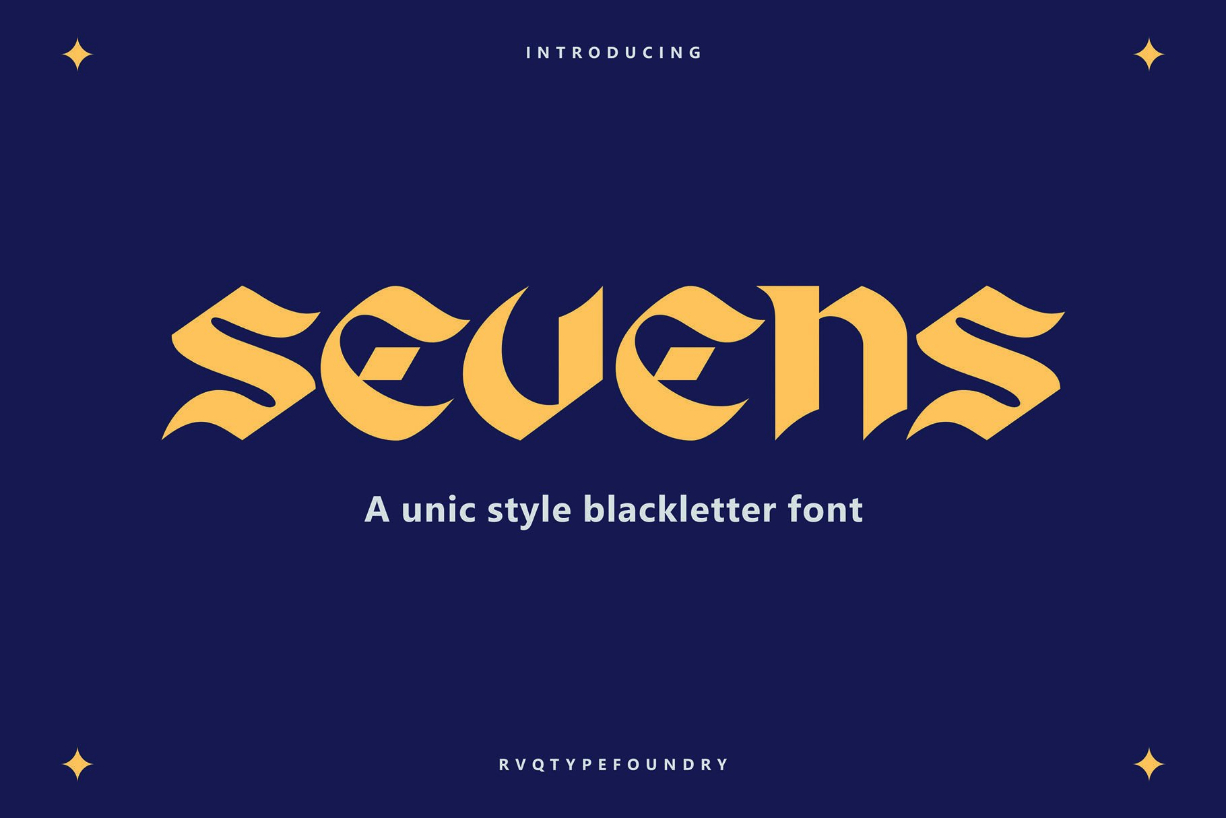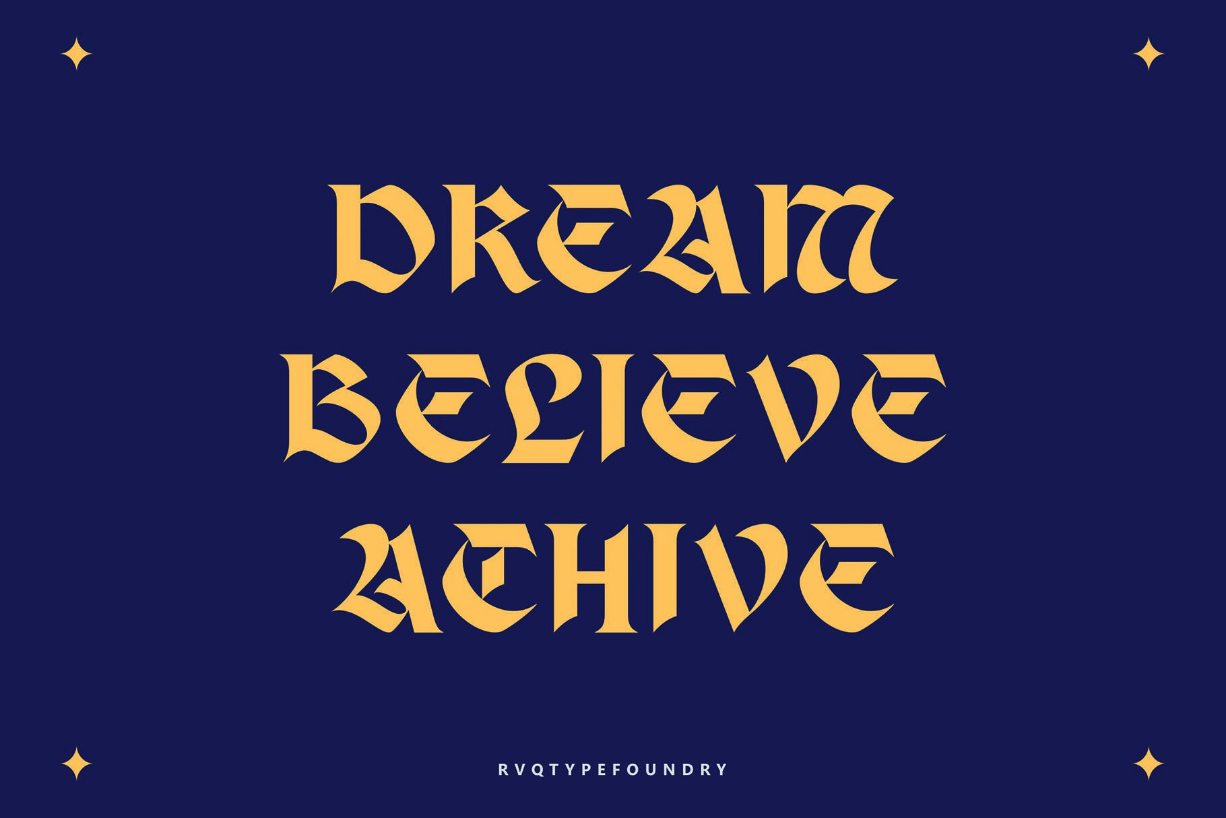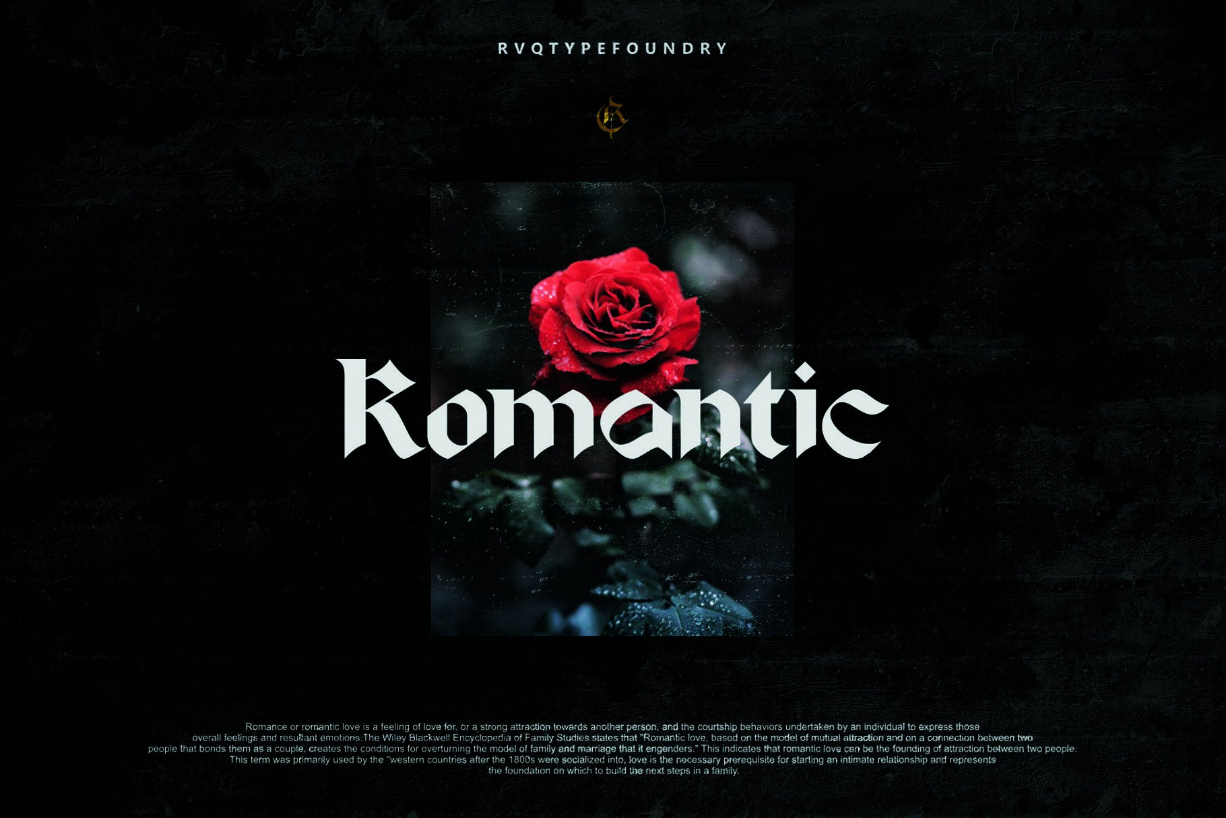
About Sevens Font
Sevens is a subset of The red billionaire but sevens font has a different lowercase. Sevens is perfect for Branding, Logos, Greeting Cards, Stationery Design, Invitations, T-shirts, Apparel, Packaging designs, Posters, Typographic designs, and so much more.